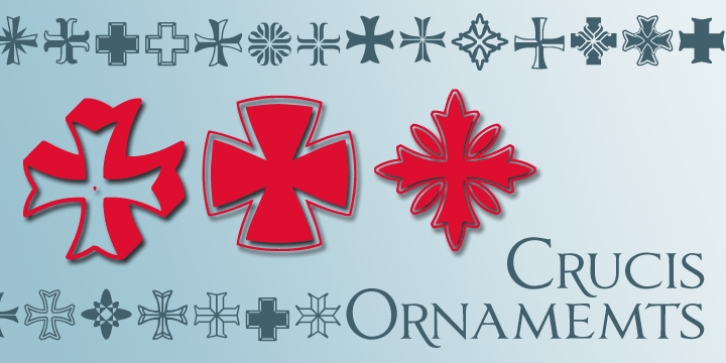
Crucis Ornaments is a dingbat font published by Greater Albion Typefounders.
Crucis Ornaments is the first in a series of traditionally inspired printers ornaments to be released by Greater Albion Typefounders. Use them to add a touch of traditional decoration to your next project.